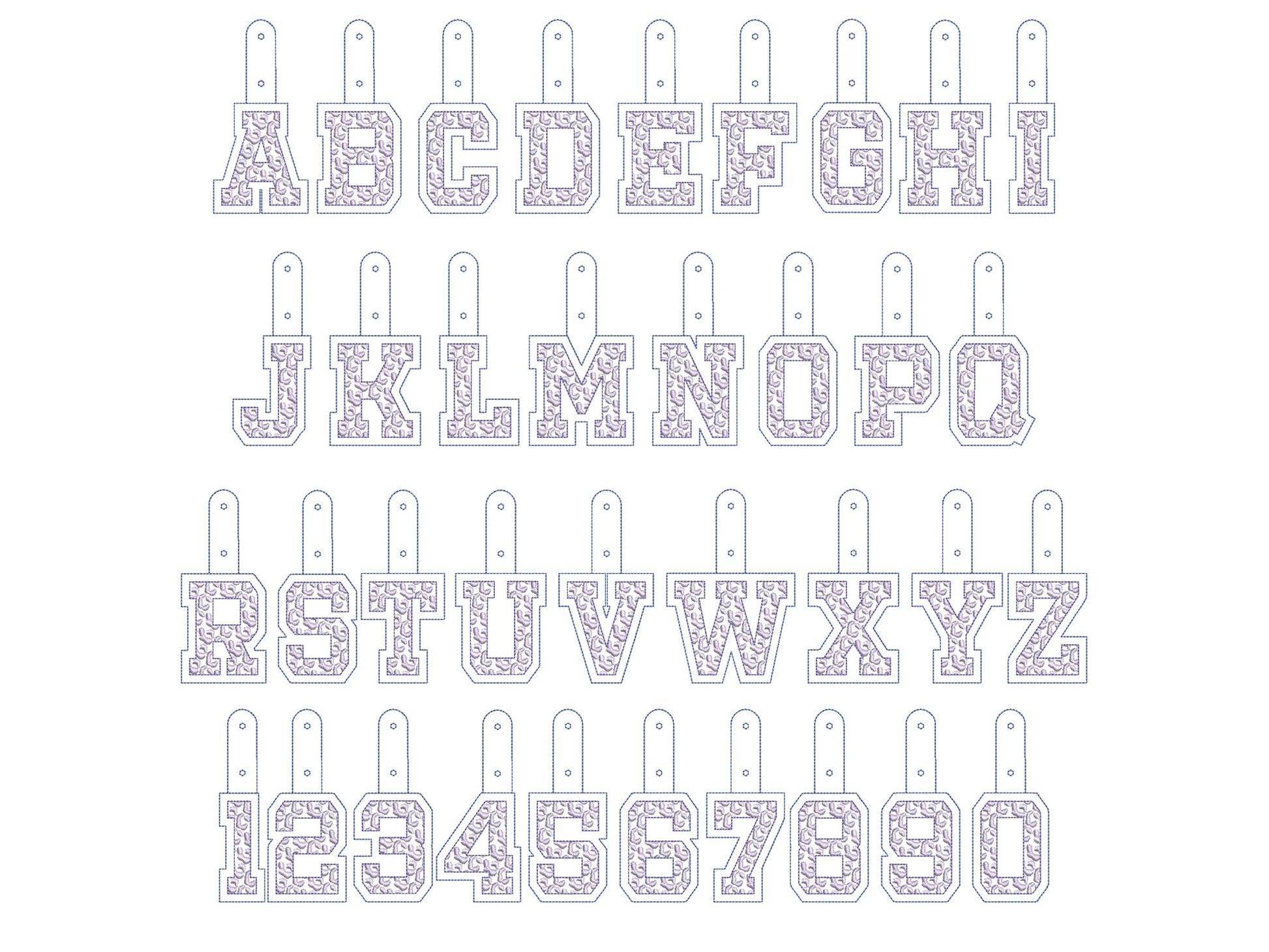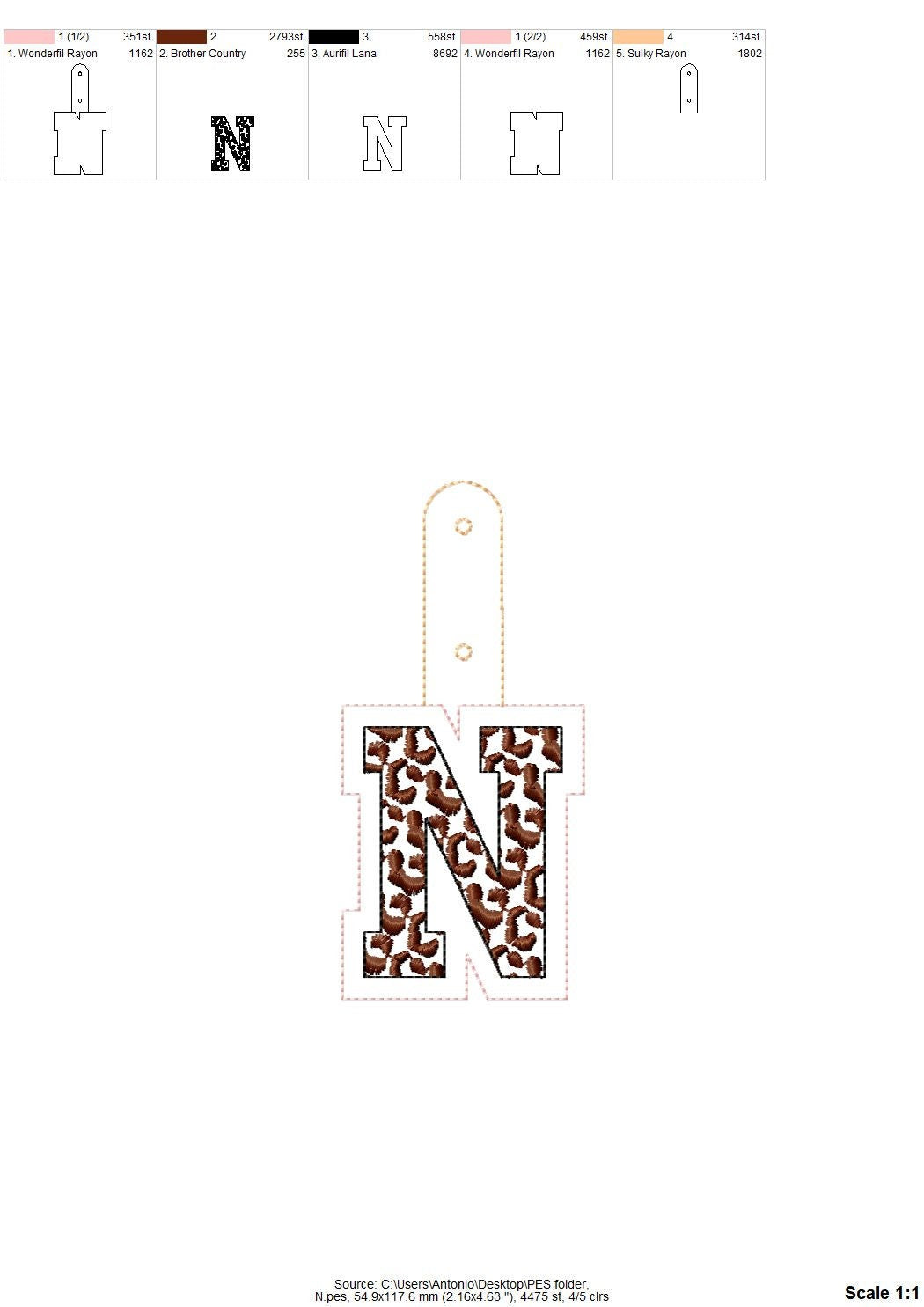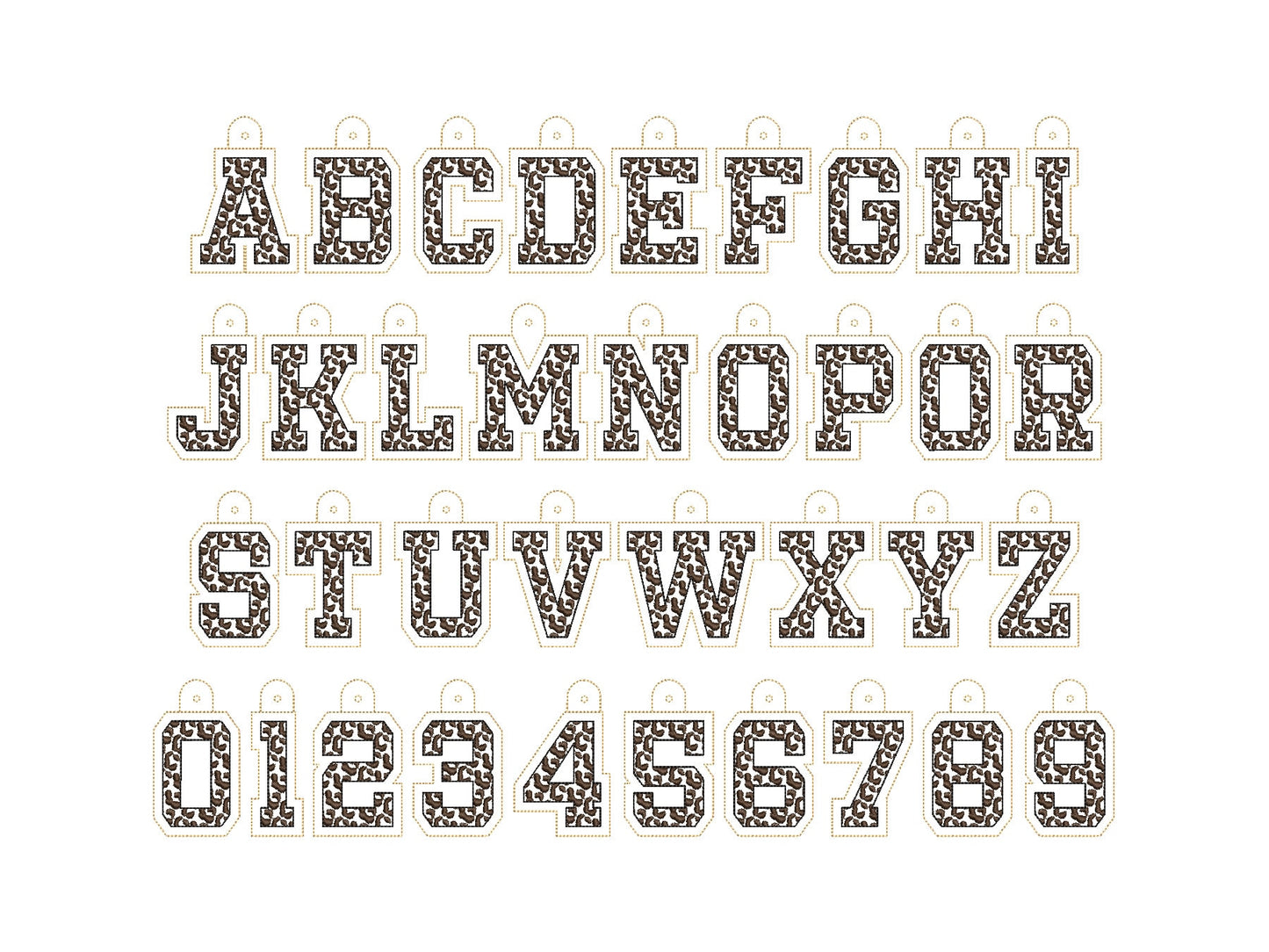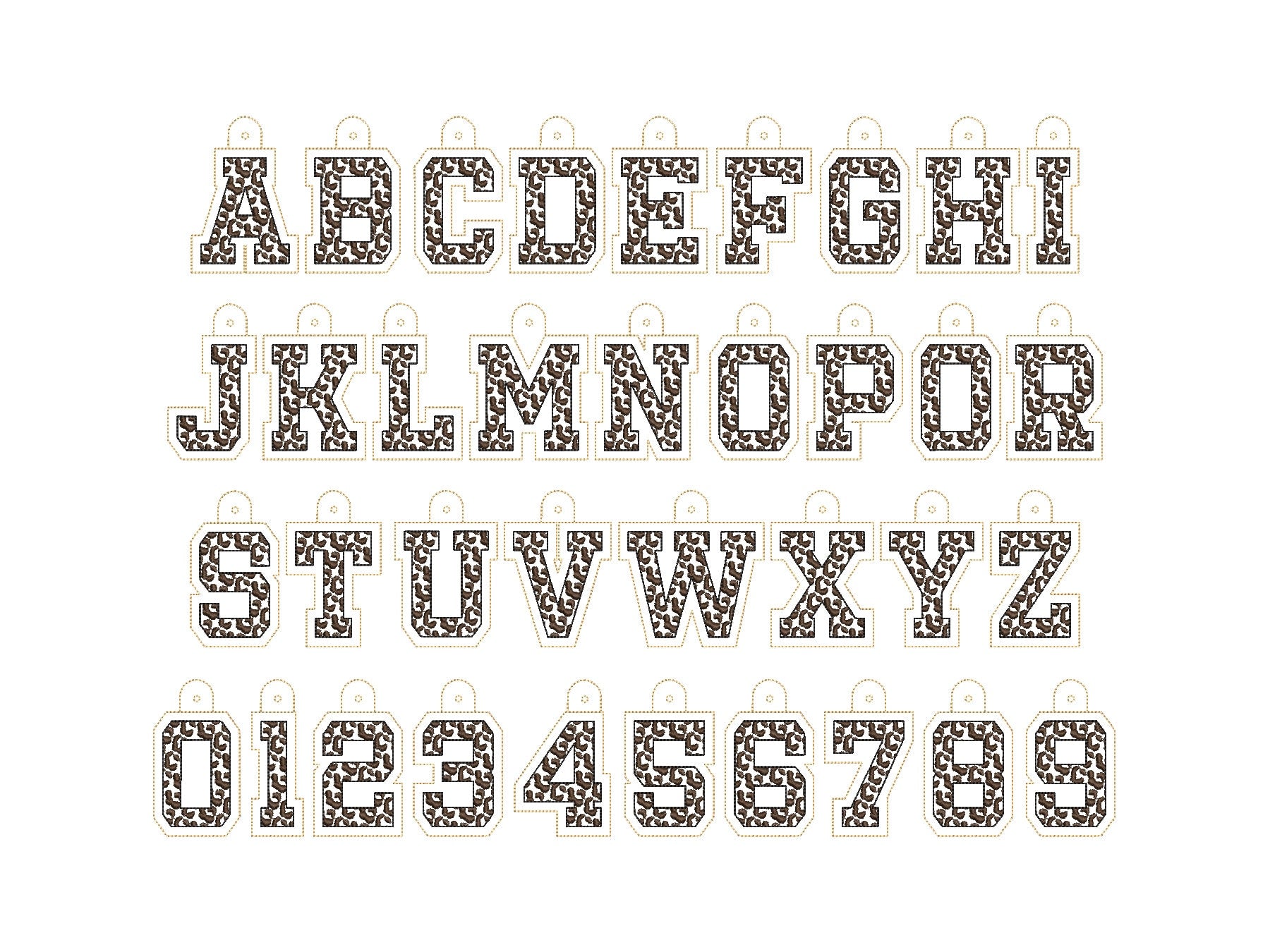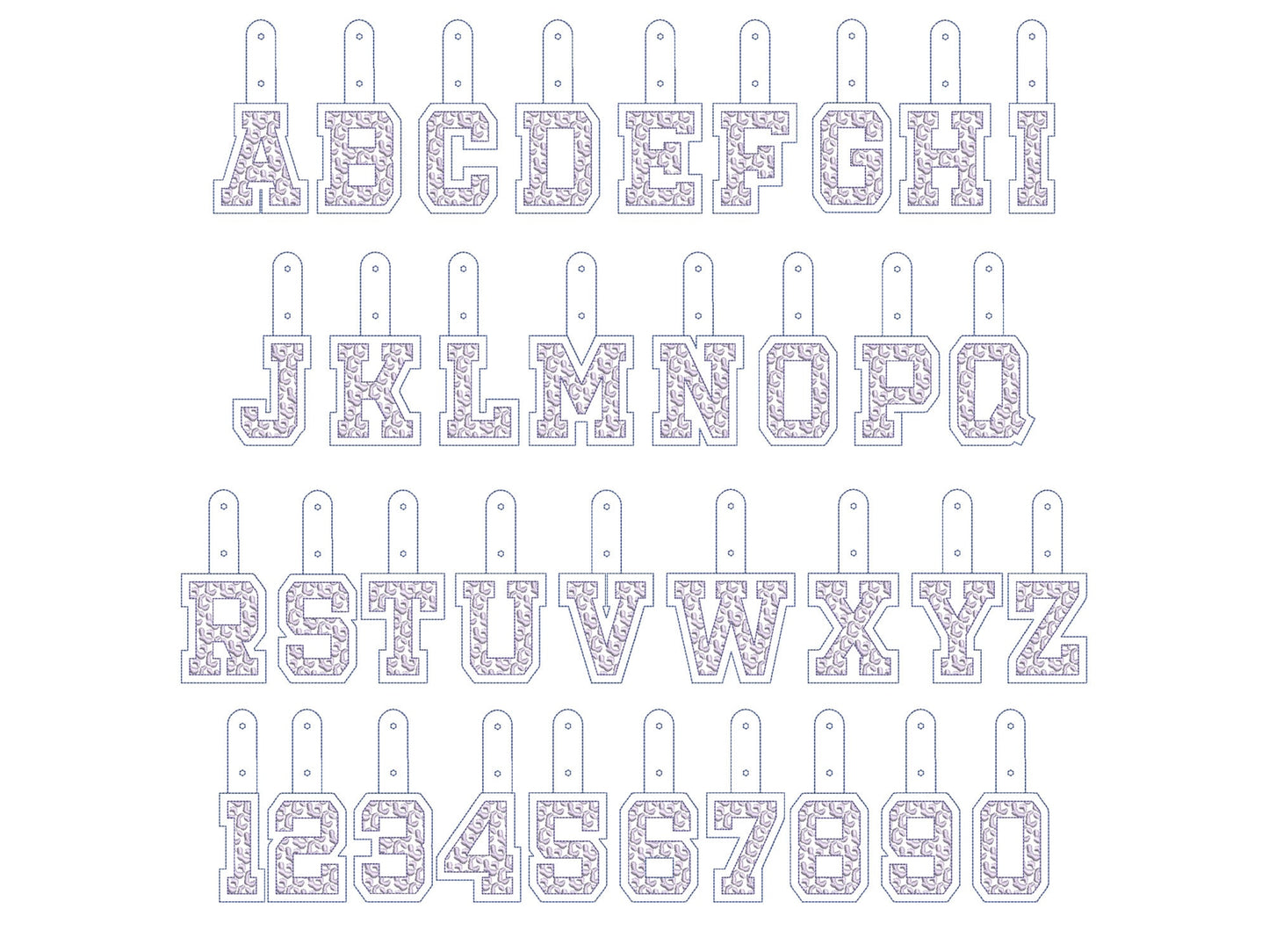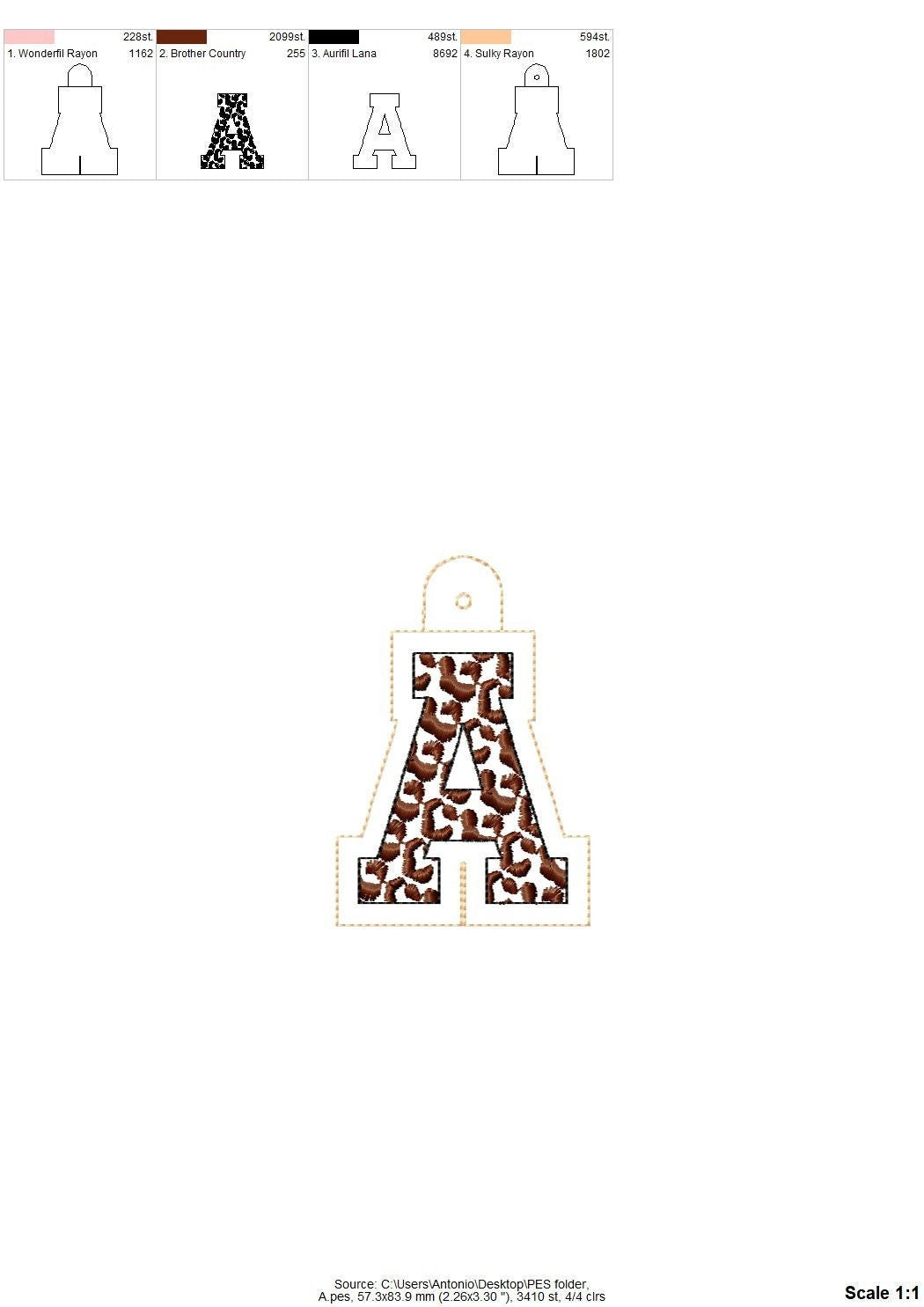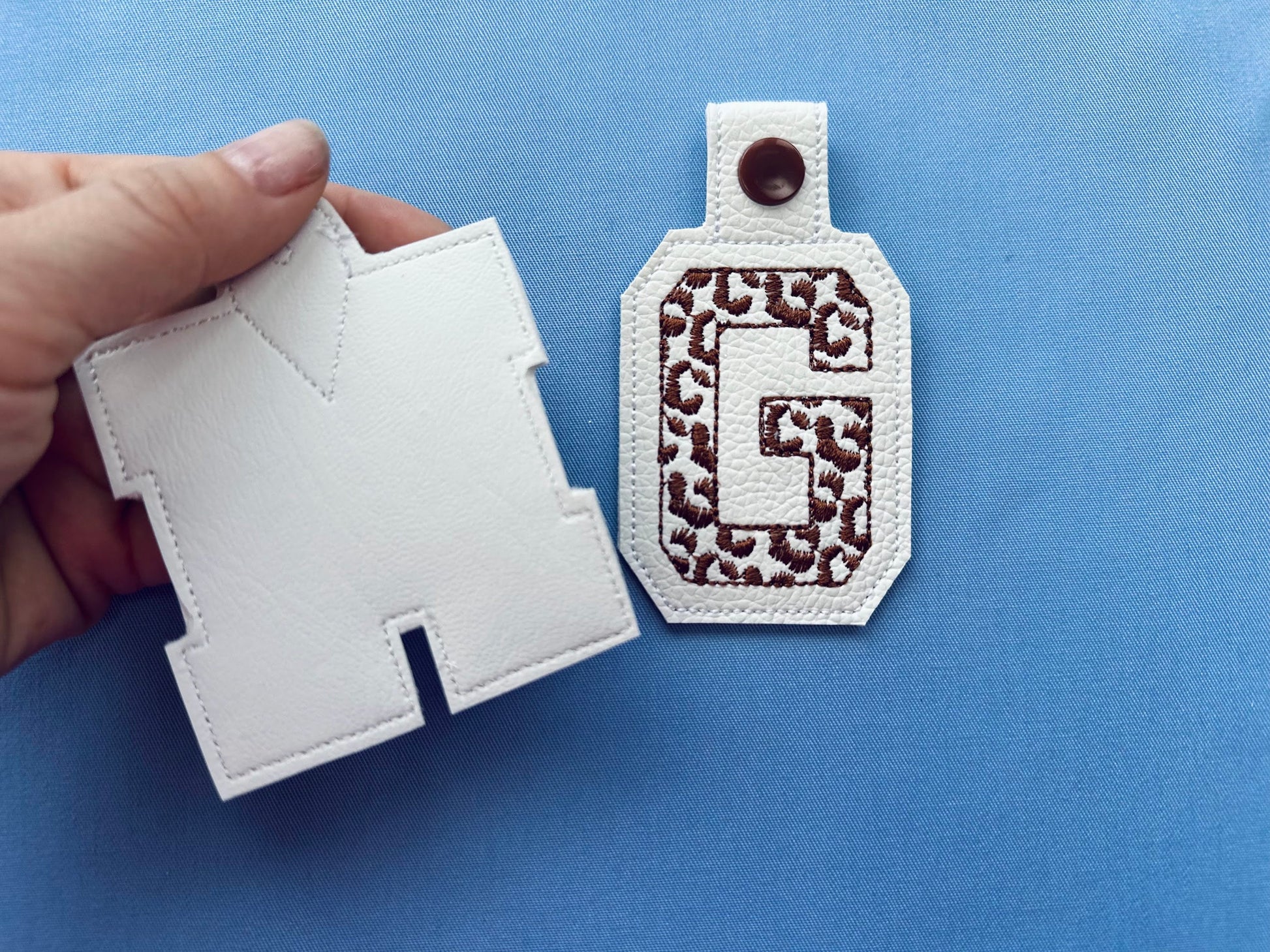
Or click to open the linkA leopard print block letter key fob, made fully in the hoop. A stylish personal gift and bag tag.
All 26 letters, A to Z, and numbers 0 to 9 in two styles: an eyelet key fob and a snap tab key fob. The finished piece is about 3.5 inches.